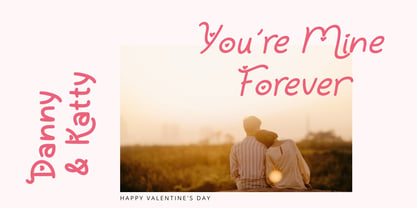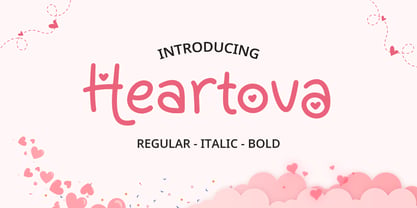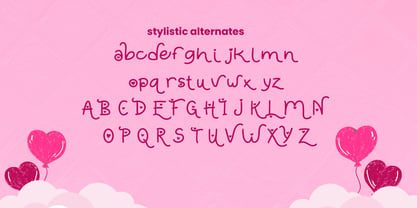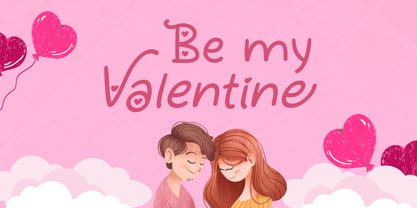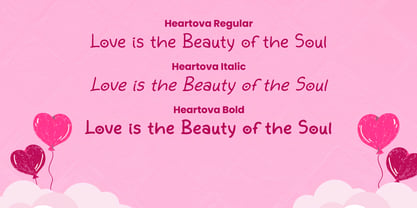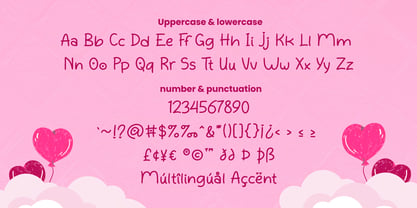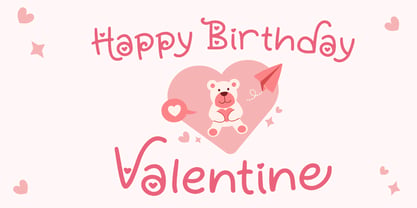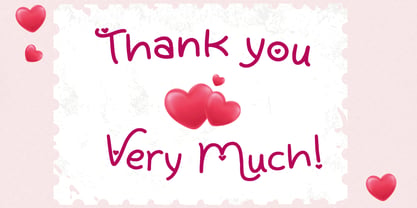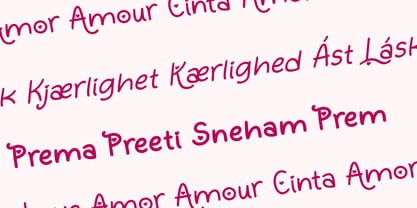
Heartova
por Attype Studio
La familia tipográfica Heartova fue diseñada por Fadli Ramadhan Iskandar y publicada por Attype Studio. Heartova contiene 3 estilos y opciones de paquete familiar. Más información sobre esta familia
Heartova is a charming playful font designed specifically for romantic projects, celebration designs, and heartfelt messaging that needs to stand out with personality and warmth. This versatile font family includes regular, italic, and bold weights, offering complete typographic flexibility for Valentine's Day campaigns, love-themed social media content, greeting card designs, wedding invitations, event promotions, and romantic branding projects that require an emotional and whimsical touch. The font features distinctive heart-shaped letterforms and circular design elements integrated throughout the alphabet, giving every piece of text a uniquely affectionate and modern appeal that captures attention instantly. With extensive character support including uppercase, lowercase, numbers, punctuation, and multilingual accents. Perfect for: Valentine's Day promotional graphics, love-themed social media posts, greeting card designs, wedding invitations, anniversary celebration materials, romantic event promotions, digital love-focused content, Valentine's campaigns, romantic stationery designs, love-themed posters, wedding websites, anniversary cards, dating app graphics, love quote graphics, and romantic brand messaging. Features : - Heartova Family Font - Stylistic Alternates - Multilingual, US Roman, Latin 1 Support --- Hope you enjoy with our font! Attype Studio